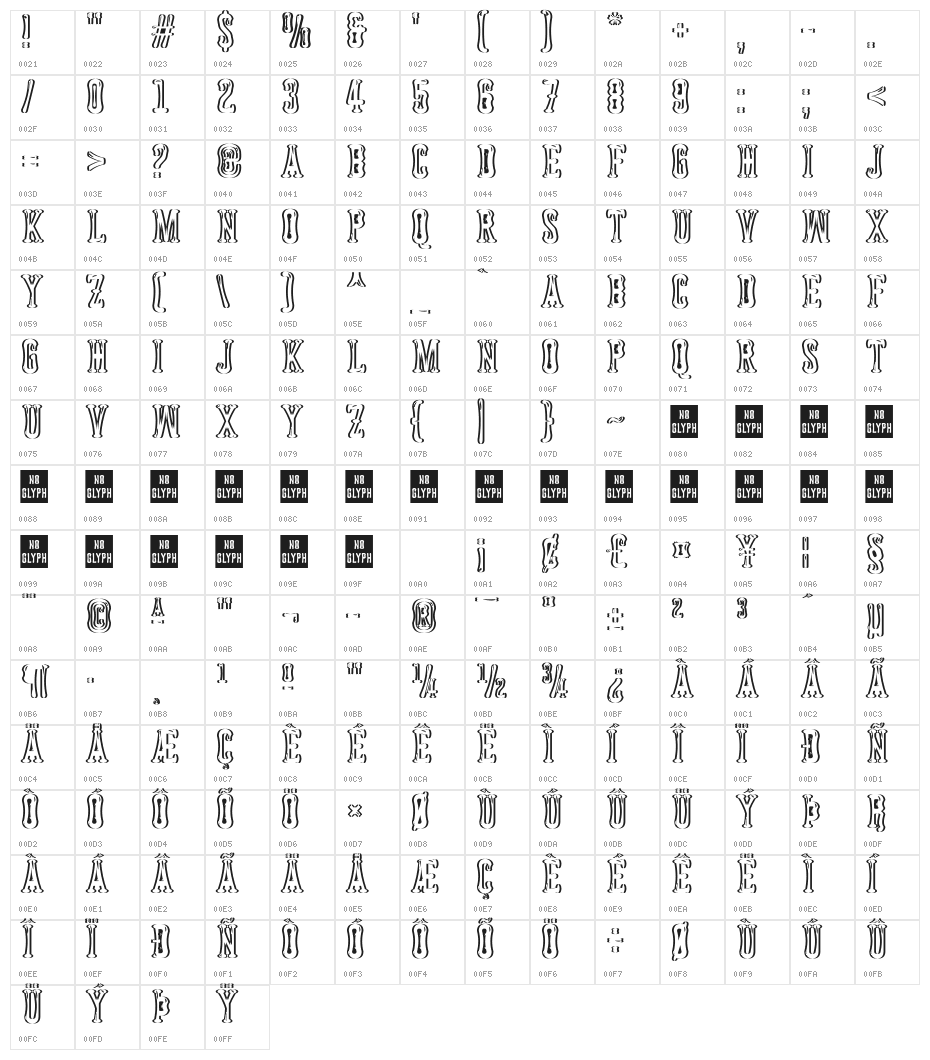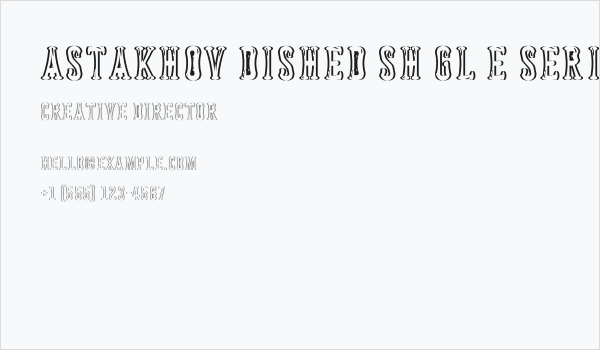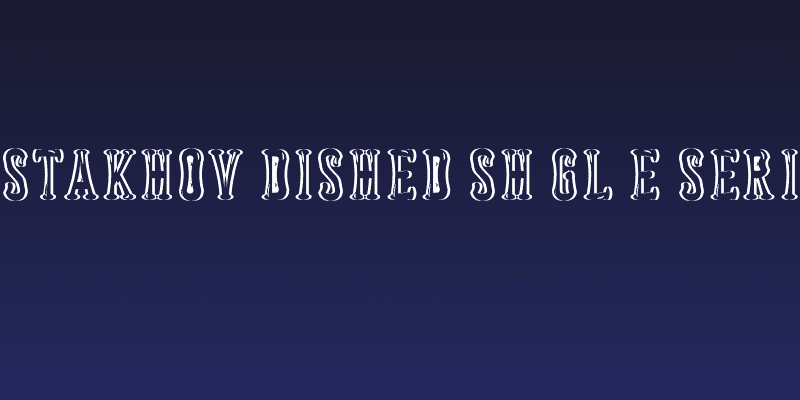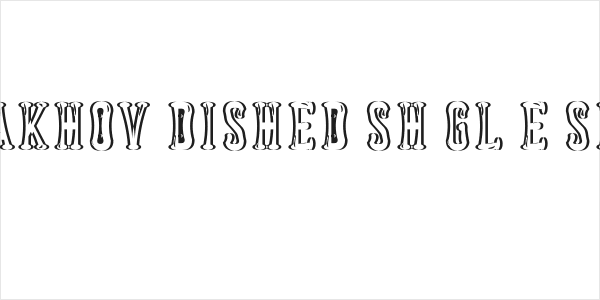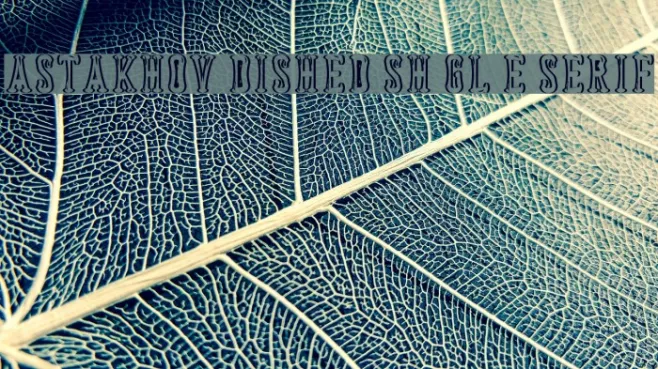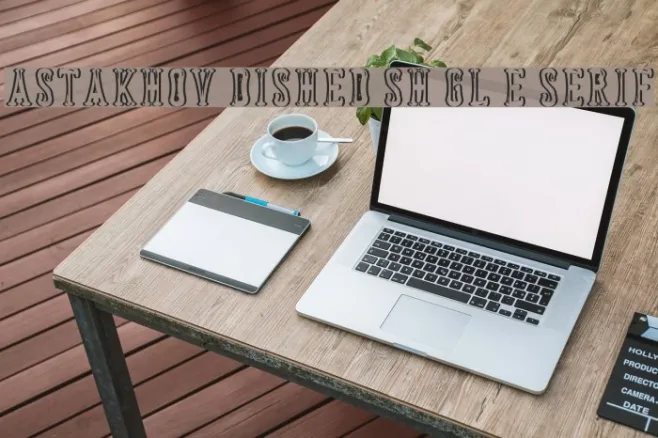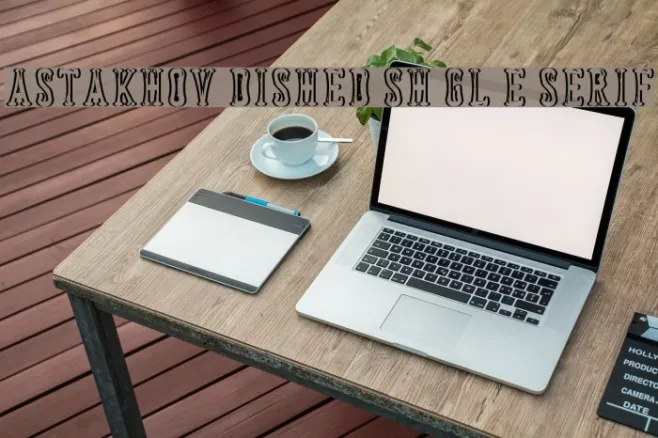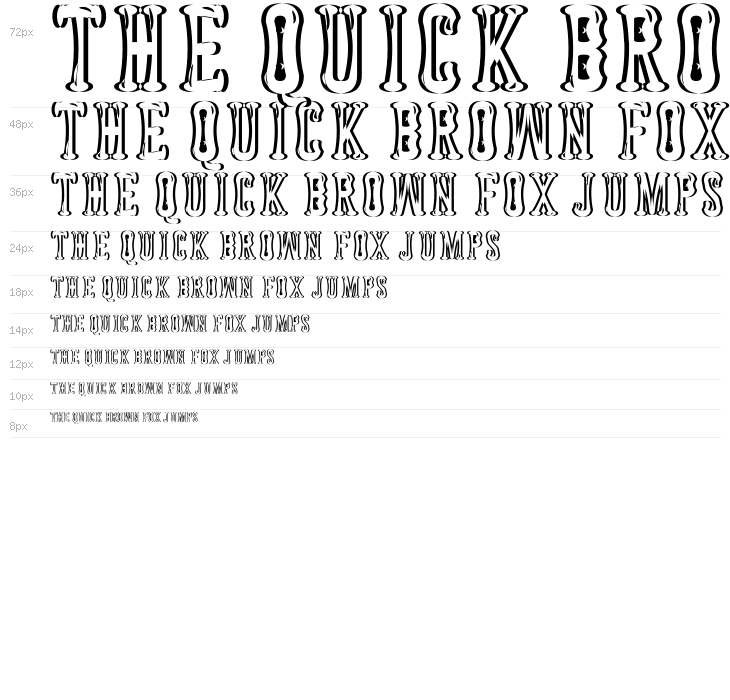
Astakhov Dished Sh Gl E Serif Font
Astakhov Dished Sh Gl E Serif Description
This font features a unique and decorative style with a bold, shadowed appearance. Each character is outlined with a thick border, creating a striking contrast between the inner and outer parts of the letters. The design incorporates a vintage flair, reminiscent of old circus or carnival posters, with an elegant serif touch that adds sophistication. The numbers and special characters maintain the same decorative theme, ensuring consistency across all glyphs. This font is perfect for projects that require a bold statement and a touch of nostalgia.